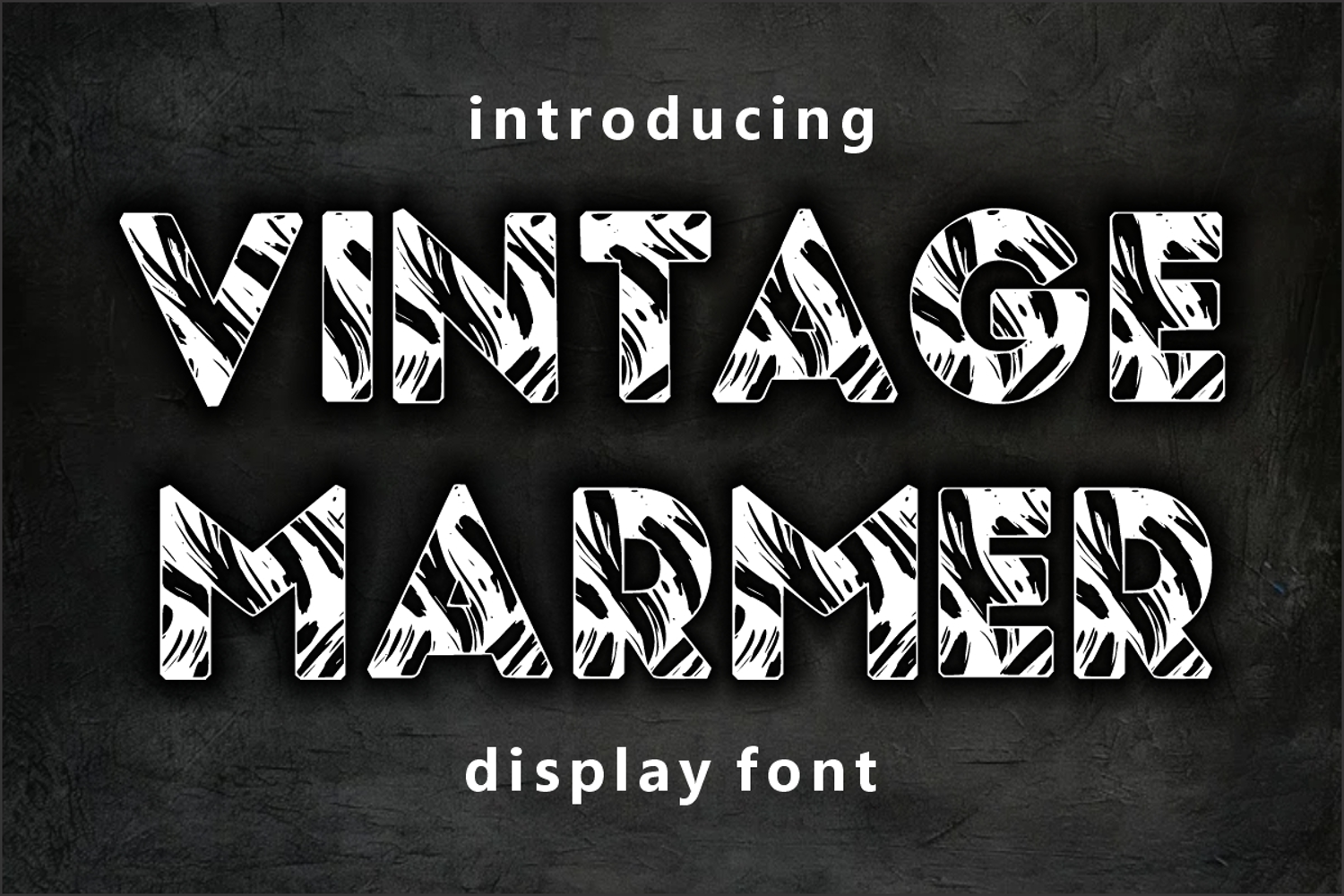
Vintage Marmer
Vintage Marmer is a grunge, marmer style, original and easy-to-read display font. Whether you’re using it for crafts, digital designs, presentations, or making greeting cards, this font has the potential to become your favorite go-to font, no matter the occasion!